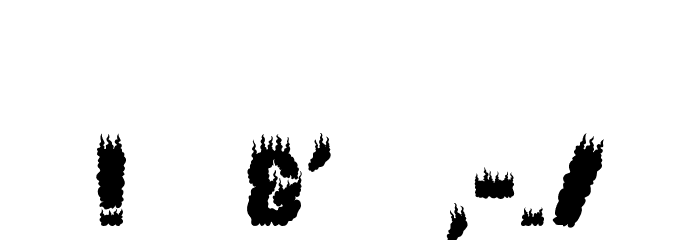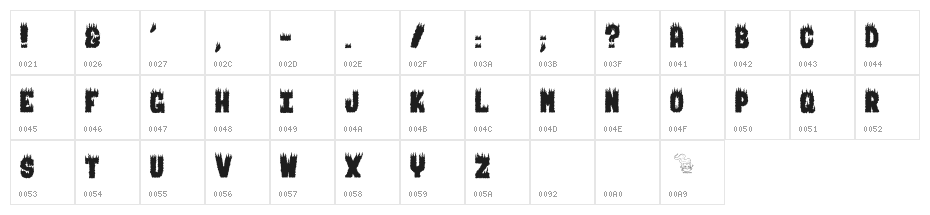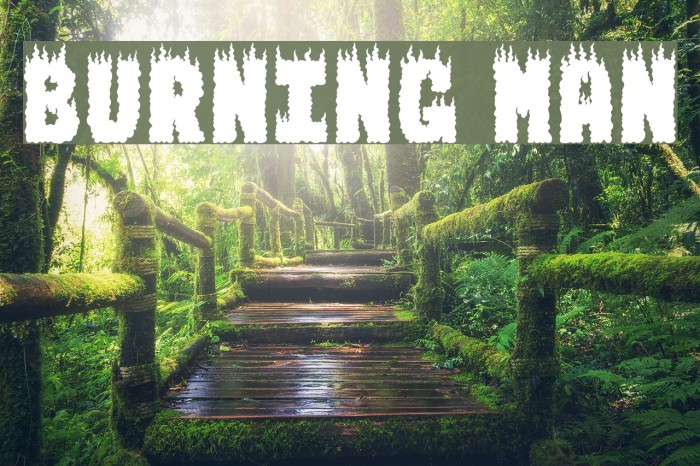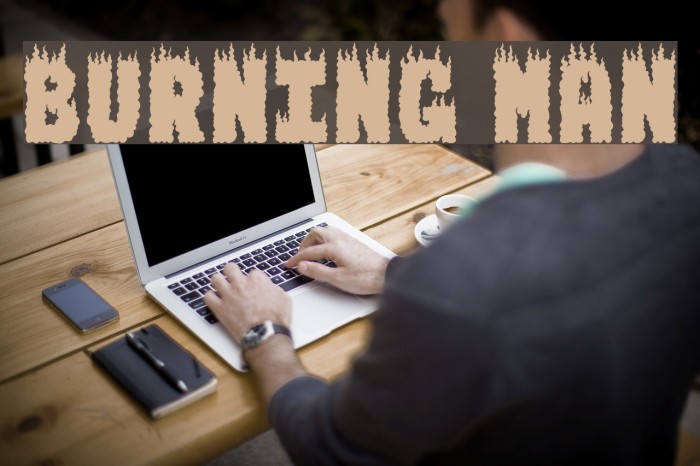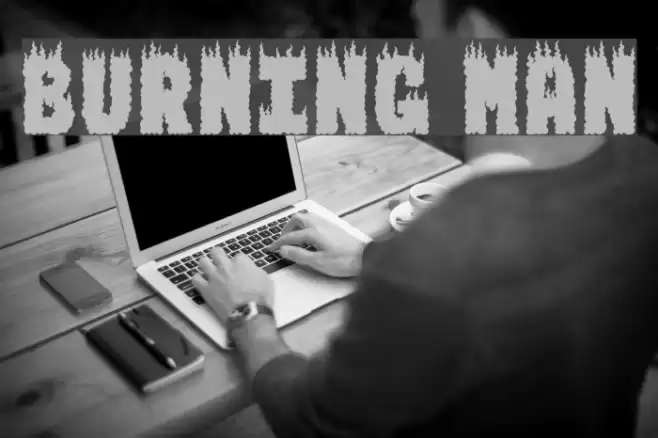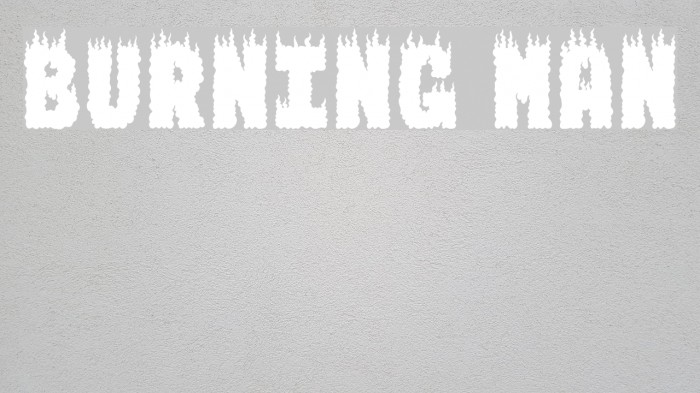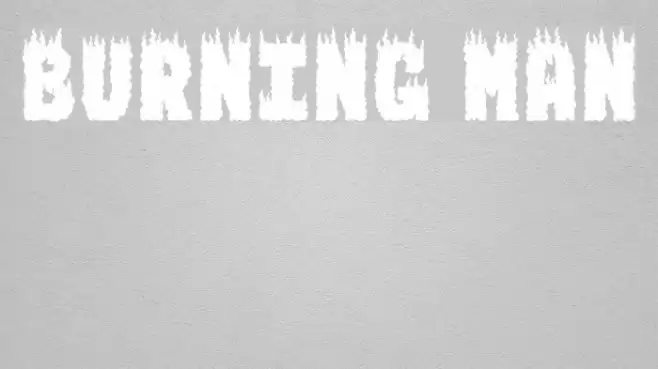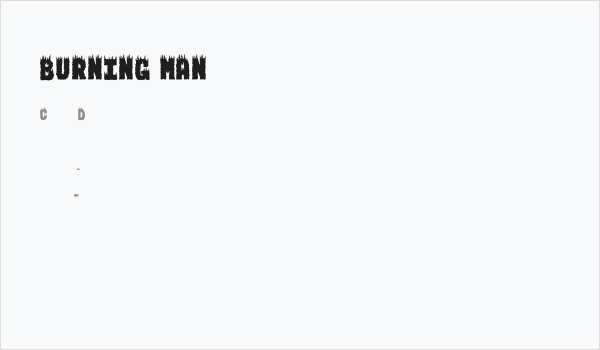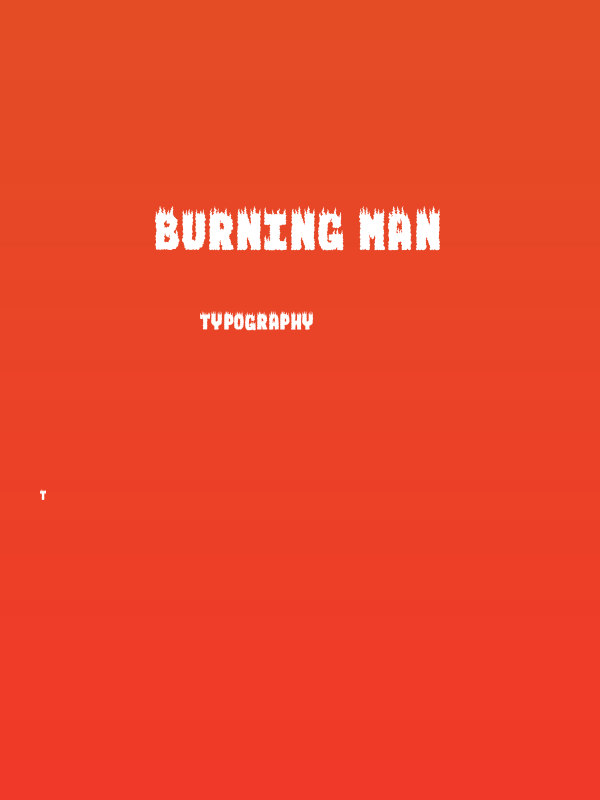
BURNING MAN Font
BURNING MAN Description
This font features a bold and fiery design, with each character appearing as if engulfed in flames. The uppercase letters are robust and dramatic, capturing attention with their unique burning effect. The style is highly decorative, making it ideal for projects that require a strong visual impact. The characters are tightly spaced, enhancing the intensity of the design. This font is perfect for themes related to fire, heat, or energy, and can be used to create striking headlines or logos.
| Proposed Projects | Ideal for event posters, music album covers, or branding for fire-related themes. |